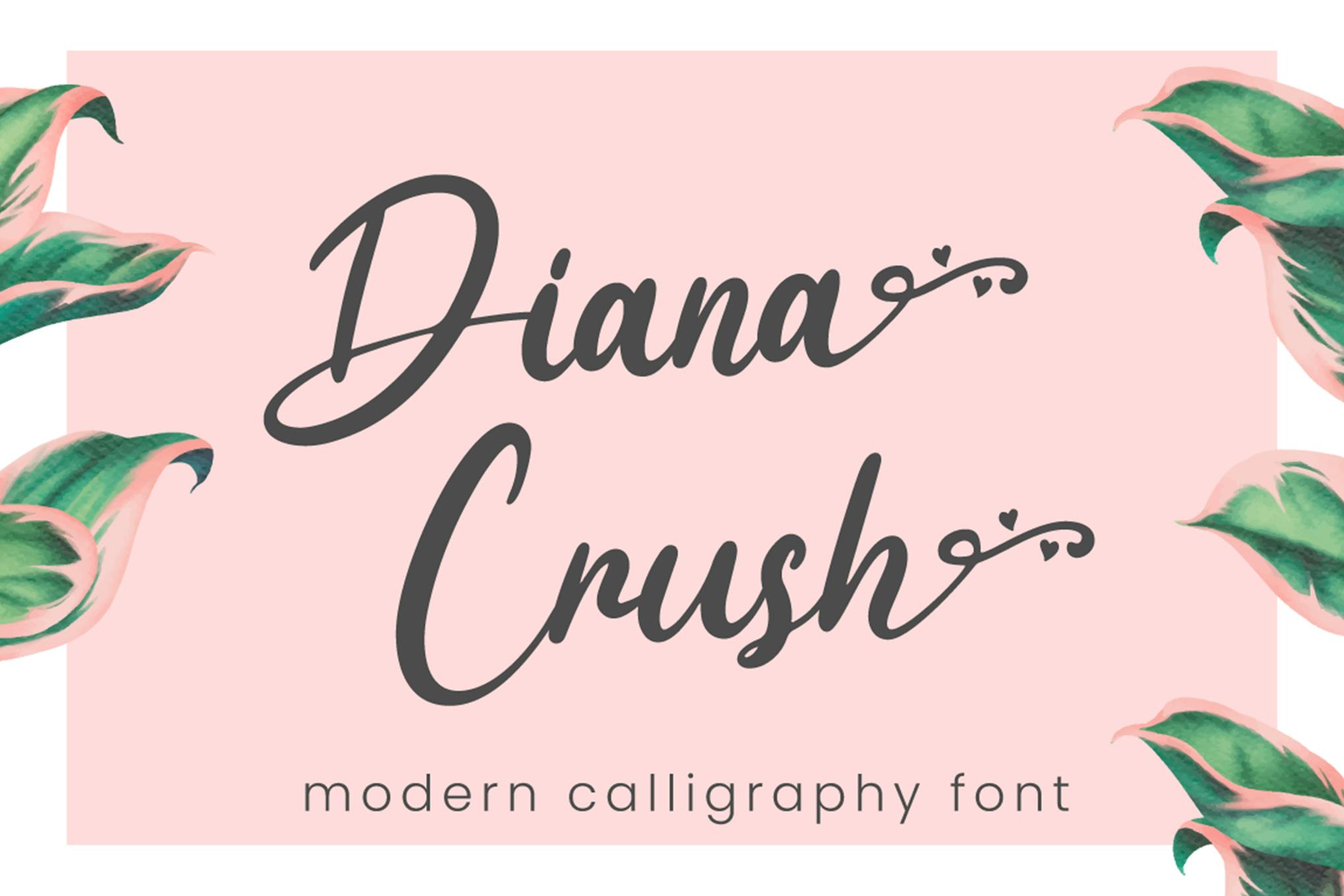
Diana Crush - Wedding Font
The Diana Crush - Wedding Font excels in romantic design applications including passionate wedding invitations, romantic bridal branding, love-struck ceremony logos, romantic product packaging, passionate business cards, romantic portfolios, love-inspired greeting cards, romantic social media graphics, passionate event signage, and romantic marketing materials. Its romantic script style makes it perfect for projects requiring passionate elegance that communicates love and establishes romantic brand positioning with audiences seeking passionate wedding experiences and romantic sophistication.
What makes the Diana Crush - Wedding Font genuinely exciting is its exceptional ability to capture the passionate romance and love-struck beauty of romantic weddings through lovingly crafted letterforms. The font features flowing, romantic strokes with passionate flourishes and love-inspired proportions that create a distinctly romantic appearance. Each character displays remarkable attention to romantic detail with passionate curves, love-struck connections, and romantic spacing that give text a beautifully passionate, hand-lettered quality. The font's romantic character and passionate rhythm create an atmosphere of love-struck elegance while maintaining romantic sophistication and wedding authenticity.
The Diana Crush - Wedding Font family typically includes regular weight with extensive character coverage, featuring uppercase and lowercase letters, numerals, punctuation marks, and international characters. The typeface often incorporates stylistic alternates, contextual ligatures, and romantic swashes that enhance its signature passion. These additional elements provide designers with creative flexibility to customize text appearance and achieve more natural-looking passionate handwriting that reflects the font's romantic and love-struck character.
This romantic signature font distinguishes itself through its remarkable balance of passionate charm and sophisticated elegance. Unlike cold or distant fonts that lack romantic appeal, Diana Crush - Wedding Font embraces the power of passionate design to create romantic connections with love-struck wedding audiences. The font's romantic character makes it essential for passionate wedding planners, romantic brands, and love-inspired celebration businesses where creating romantic wedding experiences and passionate memories is fundamental to success in romantic wedding markets.